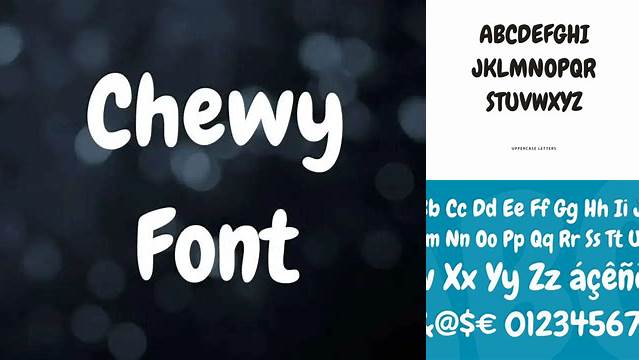
Chewy Pro Font Free Download: Your Complete Guide
Chewy Pro Font, with its playful and friendly design, has become a favorite among designers and creatives looking to add a touch of fun to their projects. If you're on the hunt for Chewy Pro Font free download options, you've come to the right place! This article dives deep into everything you need to know about this delightful typeface, from where to find it for free to how to best utilize it in your designs. We’ll explore its unique characteristics, licensing information, and creative applications, ensuring you make the most of Chewy Pro in your next project.
What is Chewy Pro Font?
Chewy Pro is a bold, hand-drawn style font that exudes a sense of playfulness and informality. Its rounded letterforms and slightly uneven edges give it a friendly and approachable vibe, making it perfect for designs that aim to be both eye-catching and welcoming. The font was created by Vernon Adams, a prolific font designer known for his open-source contributions, and is available under the SIL Open Font License, which means it’s free to use for both personal and commercial projects. This accessibility has contributed significantly to its popularity, allowing designers of all levels to incorporate it into their work without licensing concerns.
Key Characteristics of Chewy Pro Font
One of the defining features of Chewy Pro is its distinctly rounded shape. Each letter seems to have been carefully crafted with a soft, almost inflated appearance, contributing to its friendly demeanor. The slight variations in stroke thickness and the hand-drawn aesthetic add a touch of authenticity, making it feel less sterile than some other display fonts. Another notable characteristic is its bold weight, which ensures high visibility and impact, even from a distance. This makes it an excellent choice for headlines, posters, and other applications where grabbing attention is paramount.
History and Development
Chewy Pro was created by Vernon Adams, a designer who was passionate about open-source typography. Adams, who tragically passed away in 2016, left behind a legacy of numerous well-crafted and freely available fonts. Chewy Pro is one of his most popular creations, widely used in various design contexts. The font is part of the Google Fonts library, which has further boosted its visibility and accessibility. Its inclusion in this vast collection of open-source fonts means it’s readily available to anyone with an internet connection, making it a staple in many designers’ toolkits.
Why Choose Chewy Pro?
Choosing the right font can make or break a design. Chewy Pro offers a unique blend of playfulness, boldness, and readability, making it a versatile option for various projects. Its informal style is perfect for designs targeting children or those with a fun, lighthearted theme. The font's bold weight ensures it stands out, even in busy designs, while its rounded shapes add a touch of warmth and approachability. Its open-source license is a significant advantage, allowing designers to use it freely without worrying about licensing fees or restrictions. This makes it an excellent choice for both personal and commercial projects, from branding and advertising to web design and print materials.
Creative Uses for Chewy Pro Font
Chewy Pro's playful and bold character makes it incredibly versatile for a wide range of design projects. Its friendly vibe is particularly well-suited for designs targeting children, such as children’s books, educational materials, and websites for kids. However, its bold weight and readability also make it effective for headlines, posters, and branding materials. Let’s explore some specific applications where Chewy Pro can truly shine.
Branding and Logos
If you’re looking to create a brand identity that is approachable, fun, and memorable, Chewy Pro is an excellent choice. Its distinctive letterforms and bold presence make it stand out, ensuring your logo is easily recognizable. It’s particularly effective for brands in the food, beverage, and entertainment industries, especially those targeting families or a younger audience. Imagine a logo for a children’s snack brand or a family-friendly restaurant – Chewy Pro can help convey a sense of warmth and playfulness, making your brand more inviting.
Headlines and Posters
Chewy Pro's bold weight and high readability make it a fantastic option for headlines and posters. Its eye-catching appearance ensures your message grabs attention, while its friendly style prevents it from feeling too aggressive. It’s particularly effective for event posters, advertising campaigns, and website headers where you want to make a strong statement without sacrificing approachability. The font’s rounded shapes and hand-drawn feel add a touch of personality, making your headlines and posters more engaging.
Websites and Digital Media
In the digital realm, Chewy Pro can bring a sense of personality and playfulness to websites and other digital media. It’s an excellent choice for website headers, navigation menus, and other prominent text elements. Its readability on screens ensures a positive user experience, while its unique style helps your website stand out from the crowd. It can also be used in social media graphics, email marketing campaigns, and other digital communications to create a cohesive and engaging brand presence.
Print Materials
Chewy Pro is equally effective in print materials, such as brochures, flyers, and business cards. Its bold weight ensures it stands out on paper, while its friendly style adds a touch of personality. It’s particularly well-suited for marketing materials targeting families or those with a fun, lighthearted theme. Imagine a flyer for a community event or a brochure for a children’s summer camp – Chewy Pro can help convey the right message and attract your target audience.
Tips for Using Chewy Pro Effectively
While Chewy Pro is a versatile font, it’s essential to use it effectively to achieve the best results. Here are some tips to help you make the most of this playful typeface:
Pair with Simple Fonts
Chewy Pro is a display font, meaning it’s best used for headlines and other prominent text elements rather than large blocks of body text. To ensure readability, it’s best to pair it with a simpler, more neutral font for body text. Sans-serif fonts like Open Sans, Lato, or Roboto are excellent choices, as they provide a clean and modern contrast to Chewy Pro’s playful style. This combination creates a balanced and visually appealing design.
Use Sparingly
As with any display font, it’s best to use Chewy Pro sparingly. Overusing it can make your design feel cluttered and overwhelming. Focus on using it for key elements, such as headlines, logos, and call-to-action buttons, and reserve simpler fonts for body text and other supporting elements. This approach ensures Chewy Pro’s unique personality shines through without overwhelming the overall design.
Consider the Context
Chewy Pro’s playful and informal style makes it best suited for certain contexts. It’s an excellent choice for designs targeting children, families, or those with a fun, lighthearted theme. However, it may not be appropriate for more serious or formal applications. Consider your target audience and the overall message you want to convey when deciding whether to use Chewy Pro. If you’re designing for a corporate client or a professional service, a more neutral font may be a better choice.
Experiment with Colors
Chewy Pro’s bold and friendly character pairs well with vibrant colors. Experiment with different color combinations to create a visually appealing and engaging design. Bright, playful colors can enhance the font’s cheerful vibe, while more muted tones can create a softer, more approachable feel. Consider using contrasting colors to make the font stand out or complementary colors to create a harmonious design.
Chewy Pro Font is a fantastic addition to any designer’s toolkit, offering a unique blend of playfulness, boldness, and readability. Its open-source license and availability on Google Fonts make it easily accessible, while its distinctive style ensures your designs stand out. Whether you’re creating a logo, designing a poster, or building a website, Chewy Pro can help you convey a sense of warmth and approachability. Remember to download it from reputable sources like Google Fonts to ensure you’re using a safe and legal version. With its versatile character and friendly vibe, Chewy Pro is sure to become a go-to font for your creative projects. So go ahead, Chewy Pro Font free download is waiting for you – start creating something amazing today!